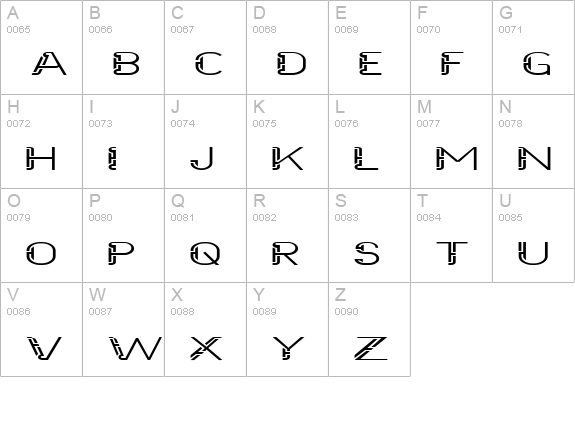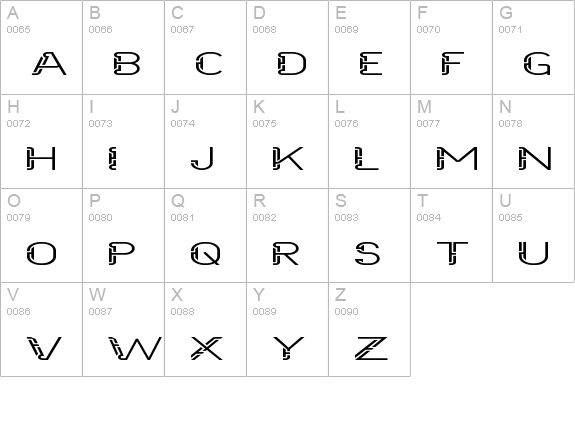
Future Sallow Wide Font Details
Future Sallow Wide is a distinctive, extended-width variant in the Future typeface family \xE2\x80\x94 well suited to design and typography projects.
Introducing Future Sallow Wide, a sleek and modern font designed to make your projects stand out. This versatile typeface combines futuristic elements with a wide, bold style, perfect for creating eye-catching headlines, titles, and branding materials. The clean lines and unique character shapes of Future Sallow Wide will bring a contemporary edge to any design. Best of all, Future Sallow Wide is available for free download at FontsMarket.com. This means you can easily access this stylish font to elevate your creative work without any cost. Whether you're working on posters, logos, websites, or any other design project, Future Sallow Wide is a fantastic choice to add a touch of modern sophistication. Download it today and watch your designs come to life with this exceptional font.